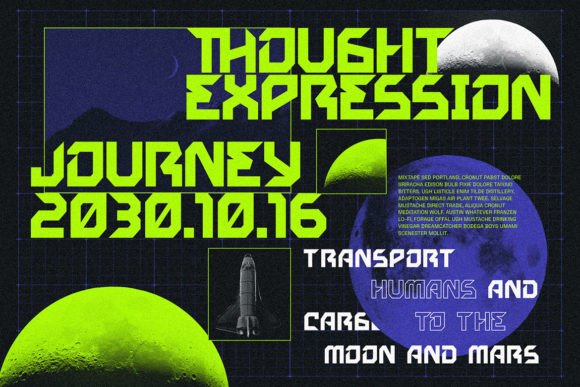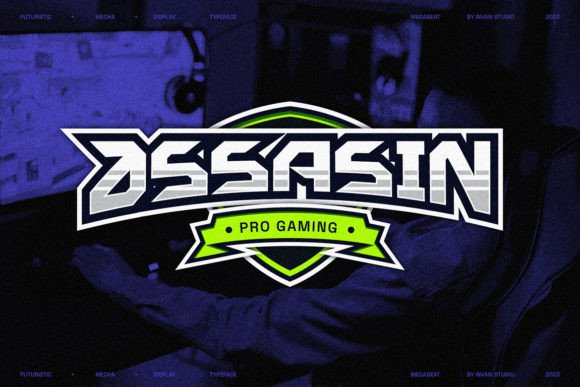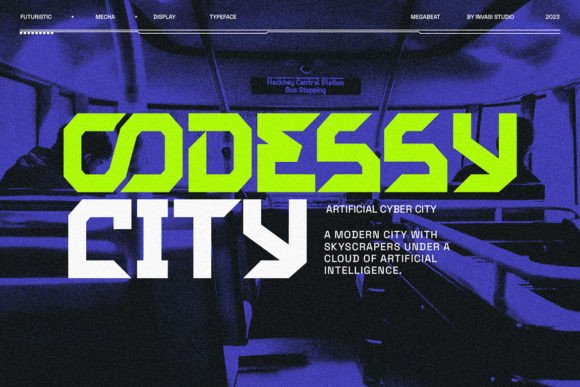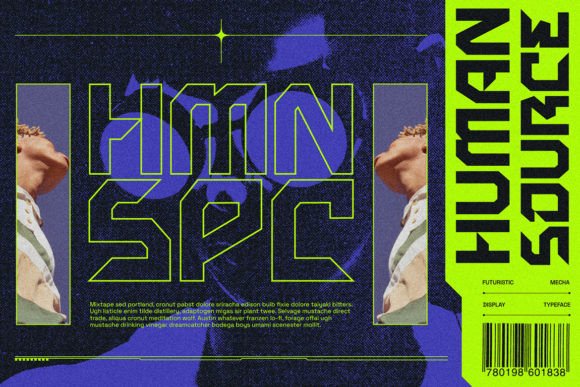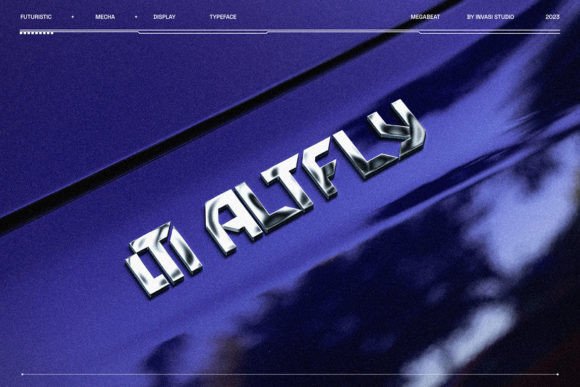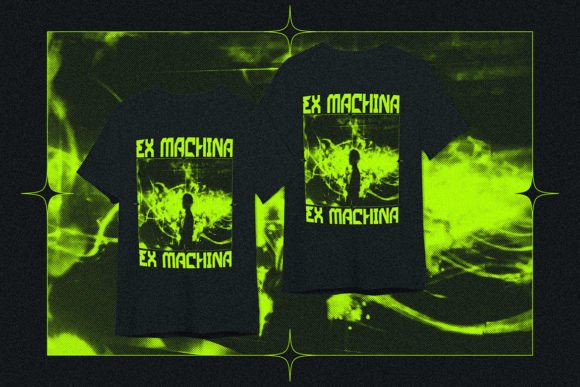
Introduction to Megabeat Font
As designers, we’ve all been there – staring at a blank canvas, trying to bring a futuristic vision to life. It’s that moment of creative spark when everything clicks, and the perfect font becomes the missing piece of the puzzle. For those who crave a retro-futuristic aesthetic, the Megabeat Font is about to become your new best friend. This exciting typeface is inspired by the iconic mecha poster movies of the past, offering a high-quality design resource that’s perfect for any creative project.
Whether you’re working on a sci-fi movie poster, a technology-based branding project, or a vintage illustration, the Megabeat Font is a valuable addition to your design arsenal. With its PUA-encoded features, accessing all delightful glyphs and swashes is effortless, allowing you to focus on bringing your vision to life.
Key Features of Megabeat Font
- High-quality design resource for creative projects, offering a unique and stylish look.
- Perfect for use in graphic design, digital art, and other creative projects where a unique and eye-catching font is required.
Honest Review: Megabeat Font
- ✨ High-quality design: As I mentioned earlier, the font’s design is top-notch, making it perfect for any project that requires a high level of sophistication.
However, there are a few limitations to be aware of. The font’s style may not be suitable for every project, and the lack of additional font weights can be a bit limiting.
- ⚠️ Limited font weights: While the font itself is beautiful, the lack of additional font weights can make it difficult to use in certain situations.
- ⚠️ Limited style options: The font’s style may not be suitable for every project, so it’s essential to consider this before using it.
Overall, I was impressed with the Megabeat Font. While it may have some limitations, its high-quality design and transparent background options make it a valuable resource for any designer working on a creative project.
Megabeat Font
The Megabeat Font is perfect for creating eye-catching titles, headings, and logos for your design projects. It’s also great for creating transparent background designs and adding a touch of personality to your work.
To get the most out of the Megabeat Font, experiment with different font sizes, colors, and styles to create unique and visually appealing designs. You can also combine the font with other design elements, such as images and graphics, to create a cohesive look.